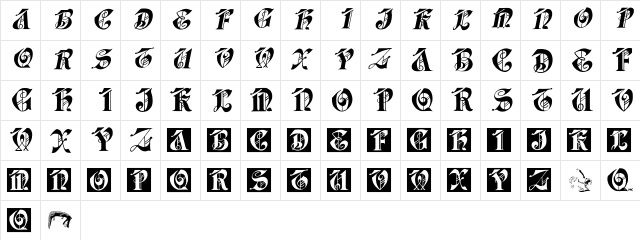
DolbyFraxCaps Regular
Design Context for DolbyFraxCaps Typeface
DolbyFraxCaps is a composed and adaptable typeface that performs quietly and consistently across a wide range of design contexts.